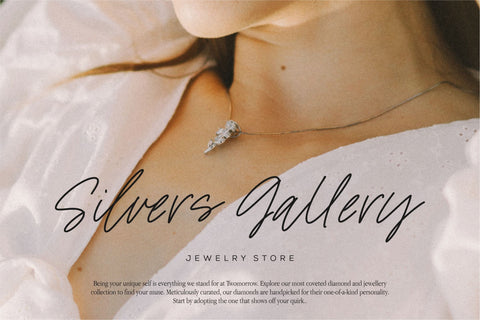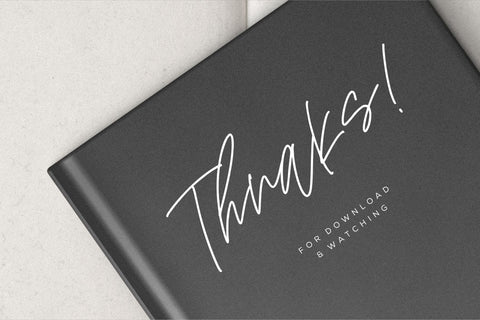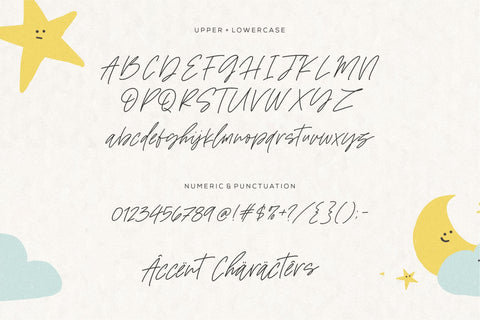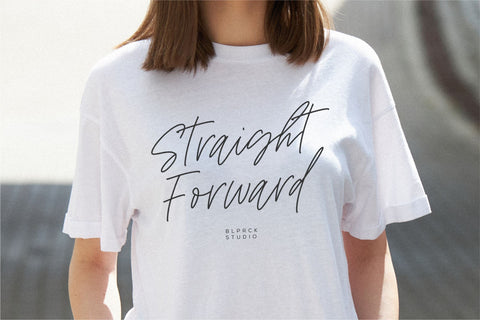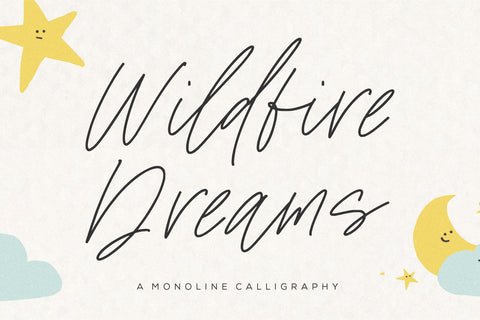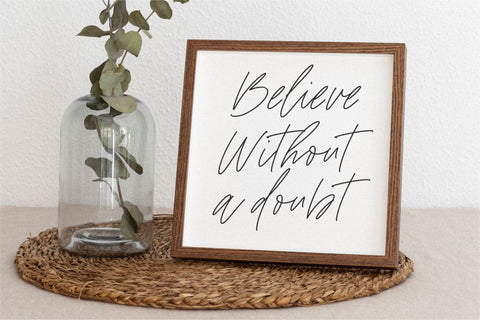
Wildfire Dreams Font
Wildfire Dreams - a monoline calligraphy that's clean, elegant and perfect for a range of design projects! With its smooth, effortless lines and understated sophistication, this font is the perfect choice for those who want a modern look that's still timeless in its appeal.
Crafted with precision and care, this font is incredibly versatile and can be used for a range of design projects, including logos, branding, invitations, packaging, and more. With its simple yet refined aesthetic, it's sure to make a lasting impression on anyone who sees it.